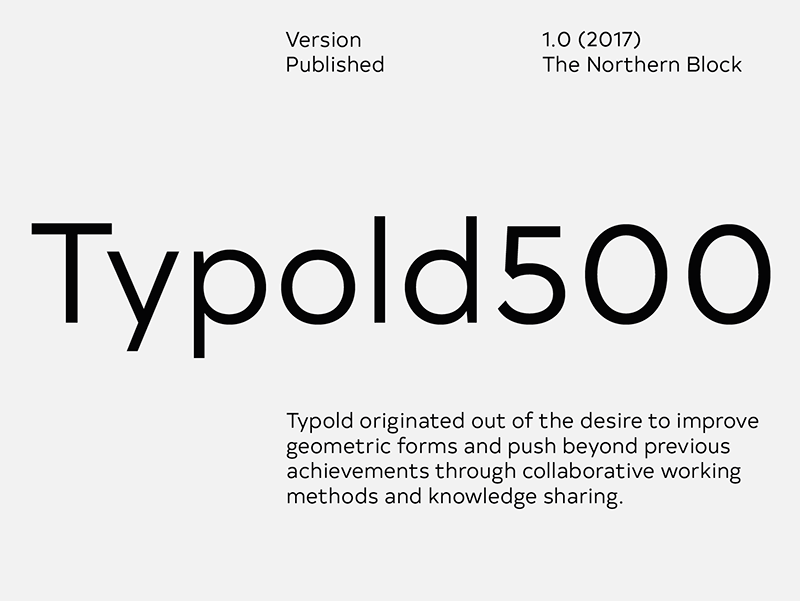
Font name: | Typold Book 500 |
Author: | The Northern Block |
Note by The Northern Block | |
Typold originated out of the desire to improve geometric forms and push beyond previous achievements through collaborative working methods and knowledge sharing. The result is a finely balanced modern sans serif constructed from mathematical inputs, typographers� needs, and the natural hand and eye of an artisan. |